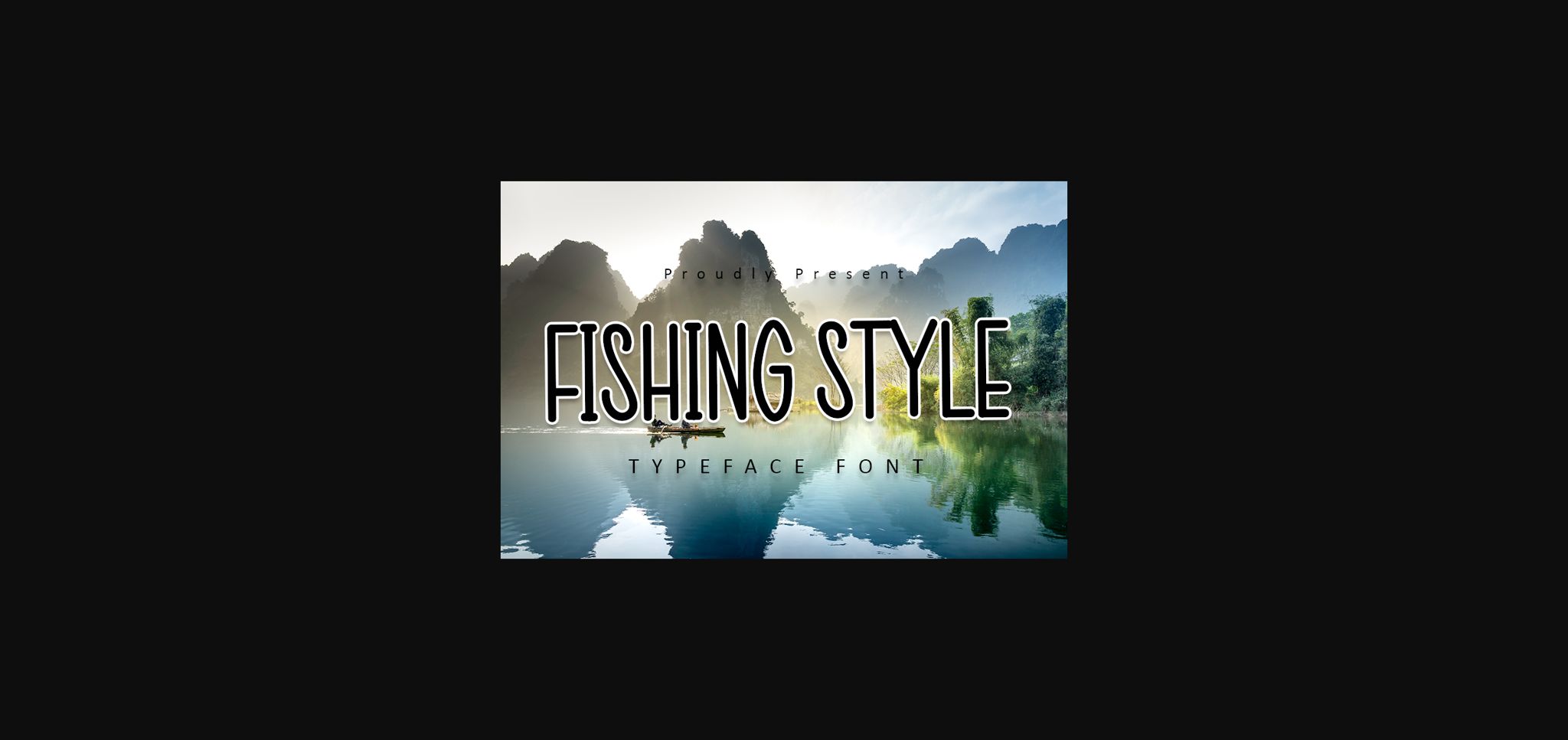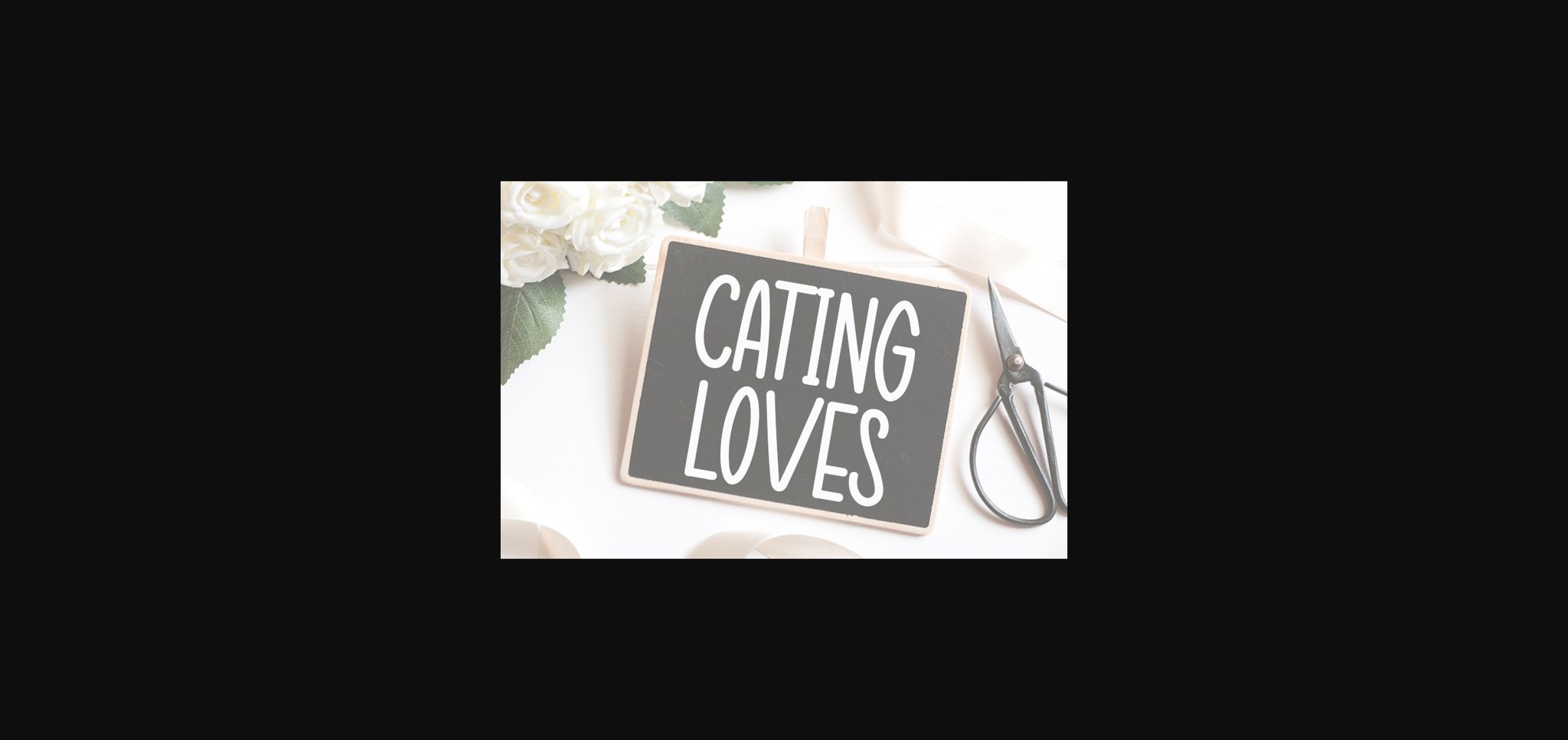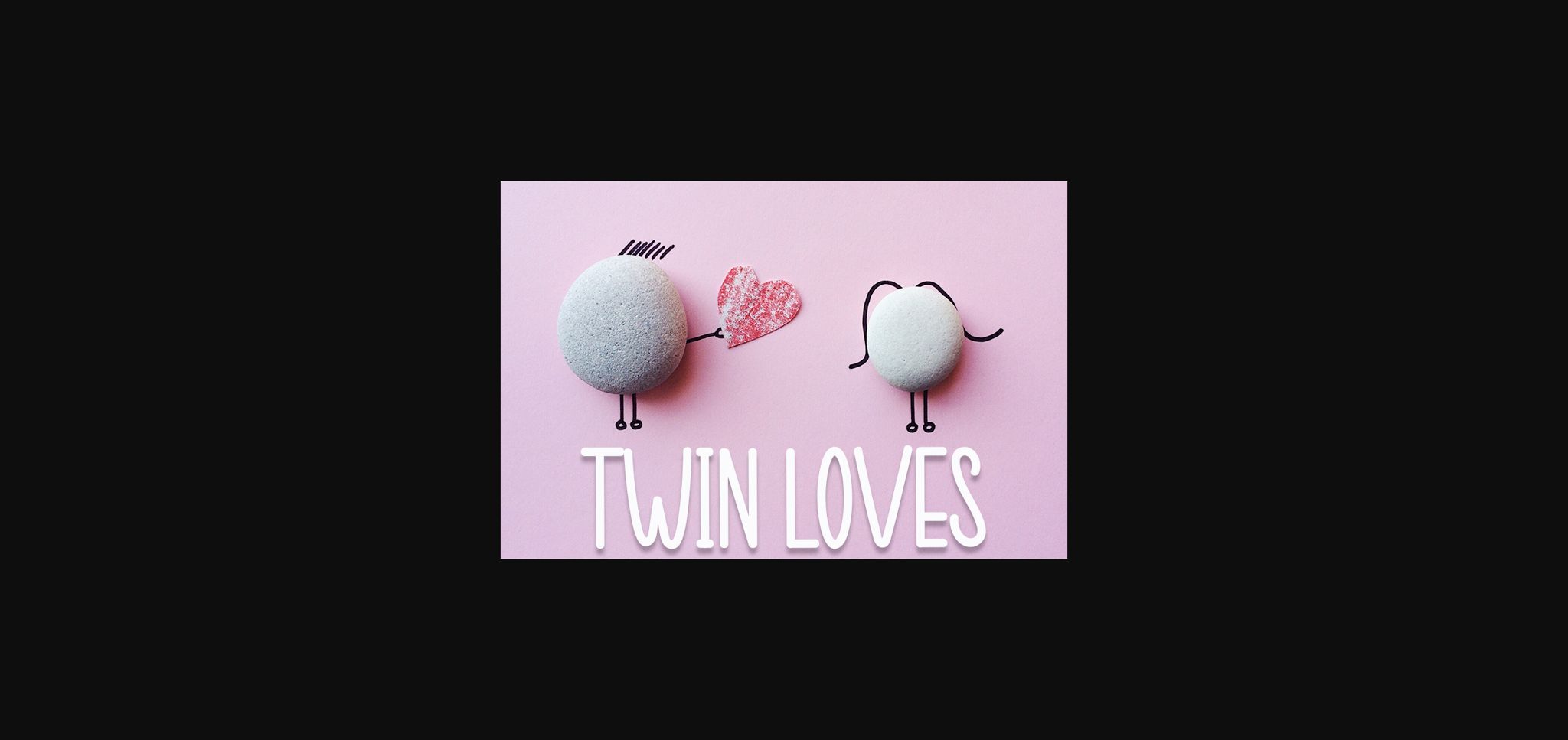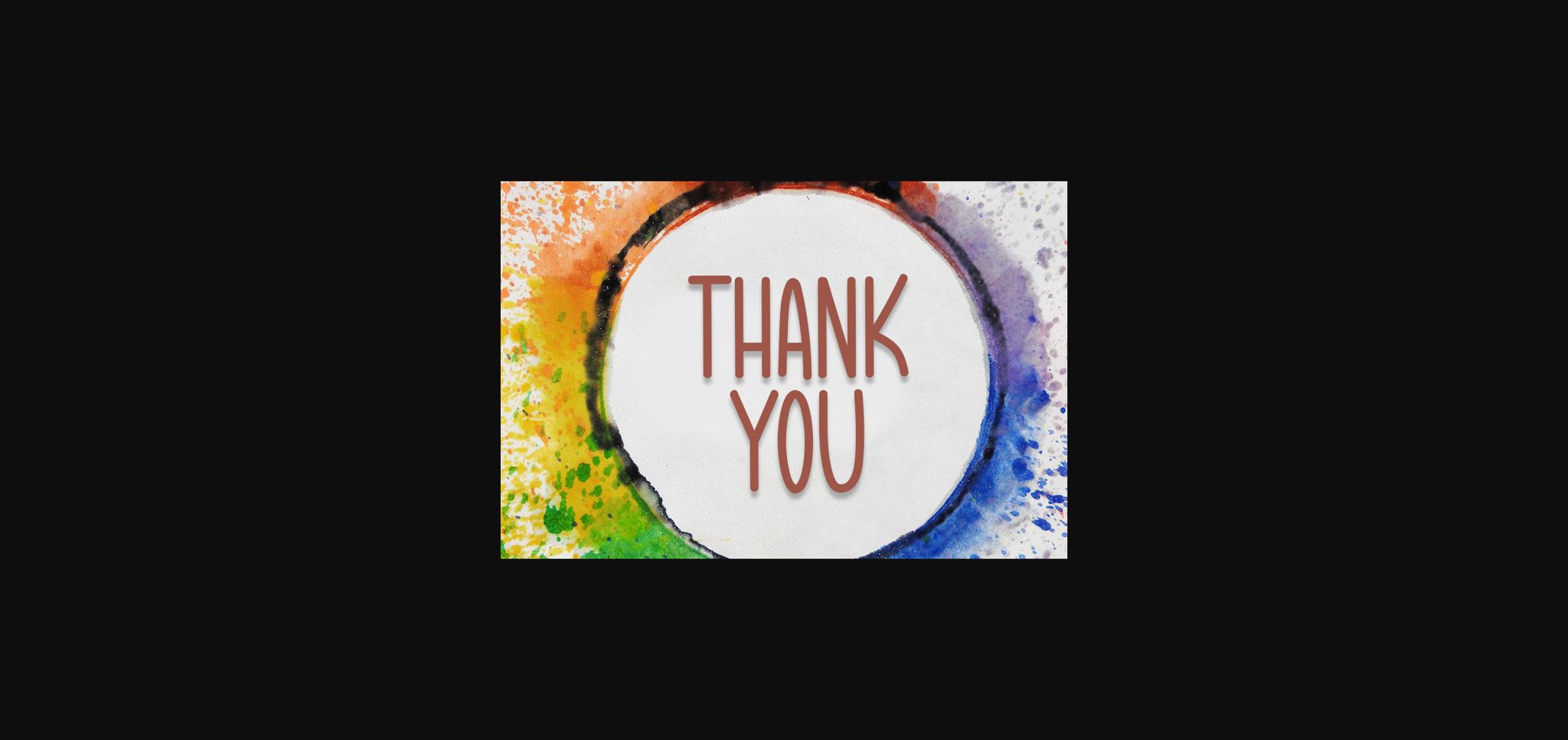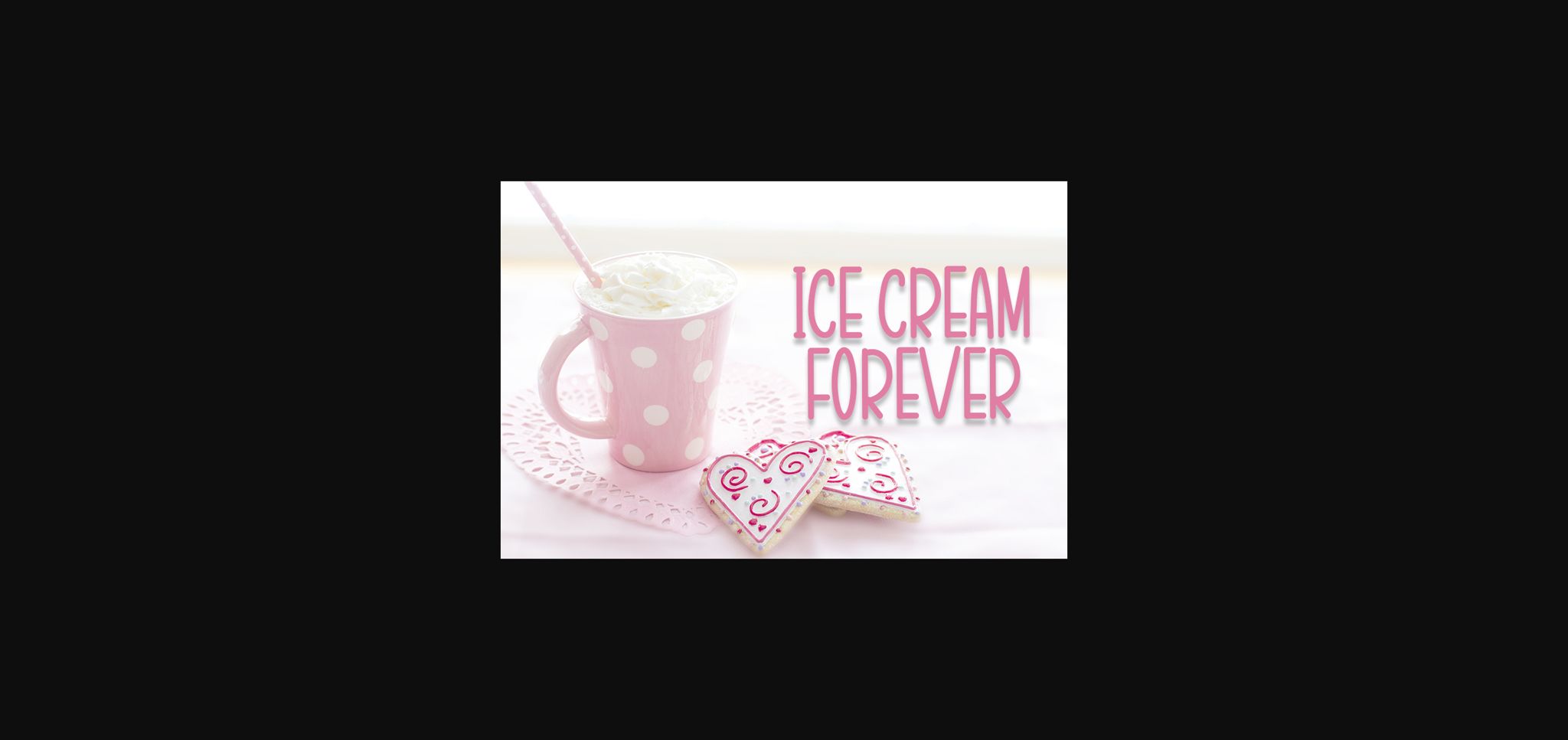
Fishing Style Font
About Fishing Style Font
Fishing Style is a simple and natural sans serif font. Fall in love with its incredibly versatile style and use it to create gorgeous wedding invitations, beautiful stationary art, eye-catching social media posts, and much more!